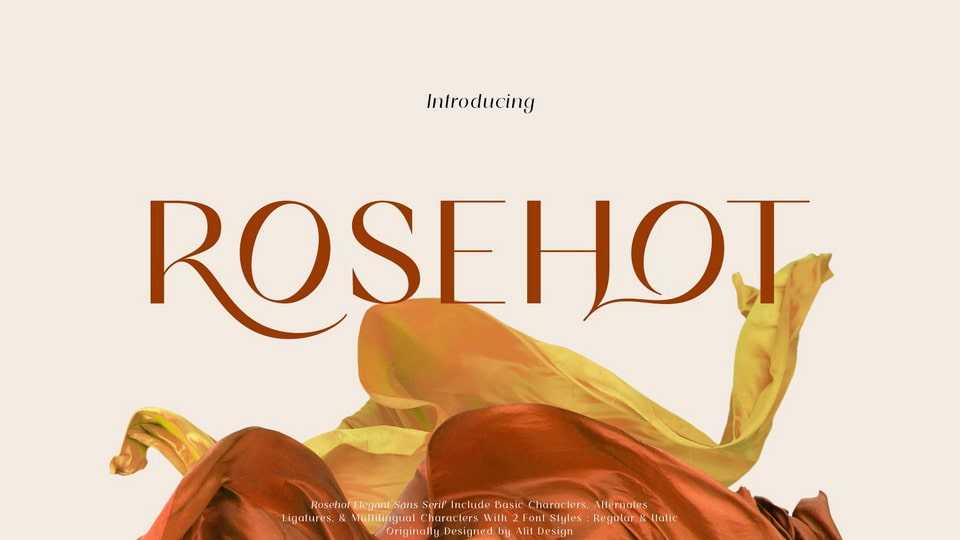
Download The Rosehot font, an elegantly themed typeface that has a dynamic serif style. The details of the shape of the Rosehot Serif are very smooth and flow to create unique and beautiful curves.